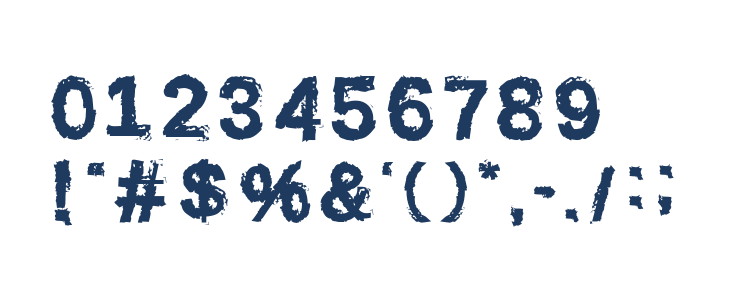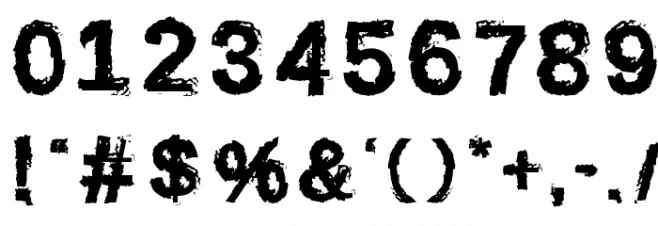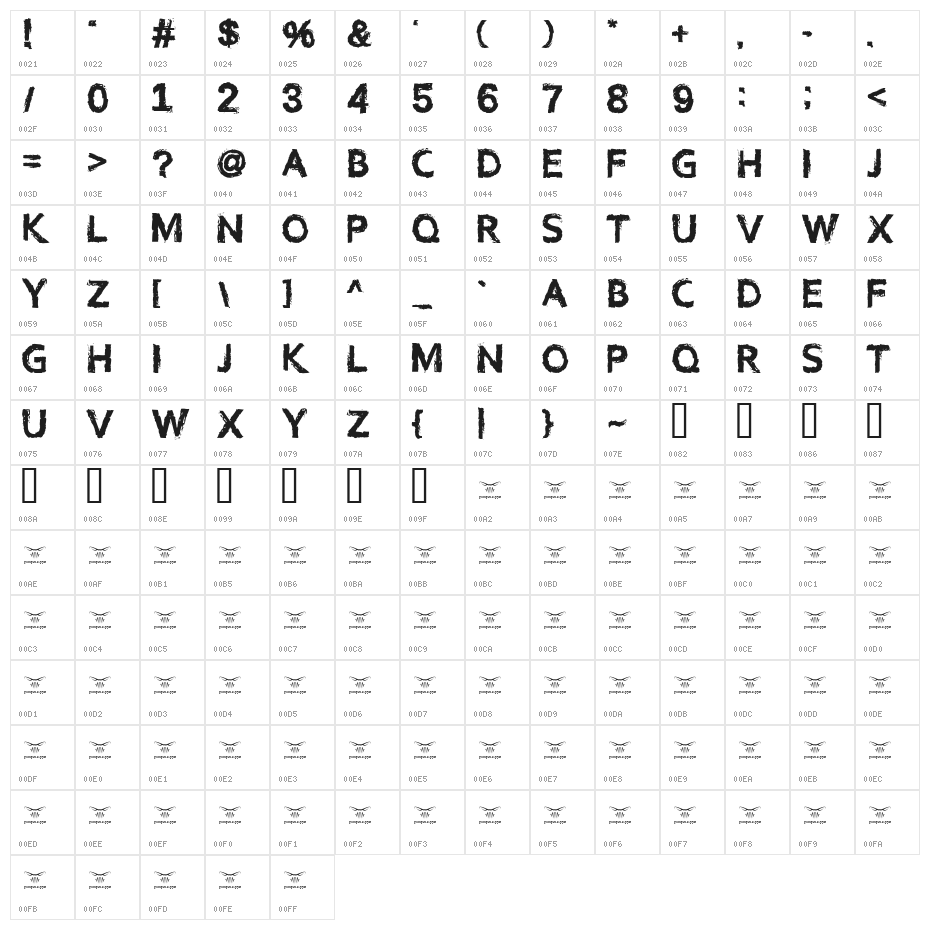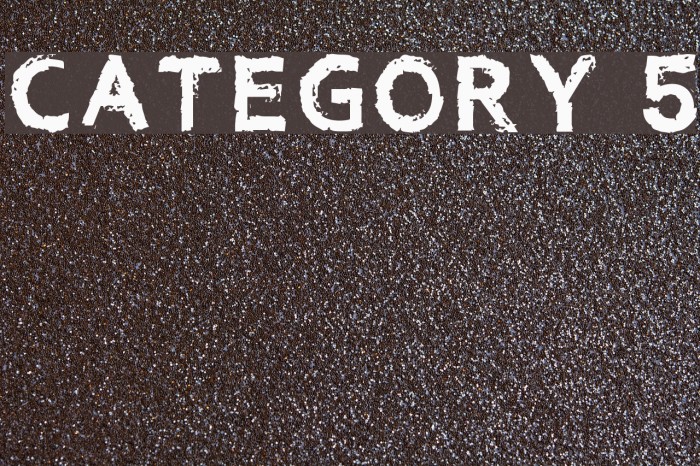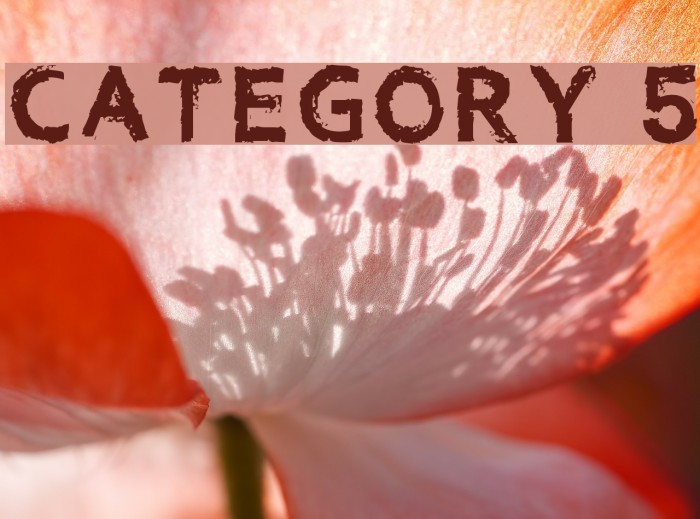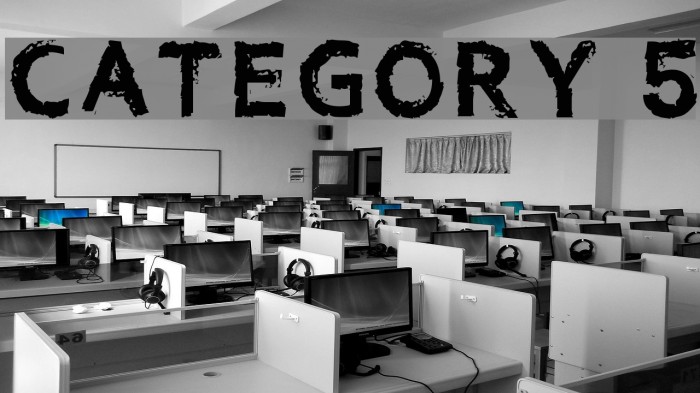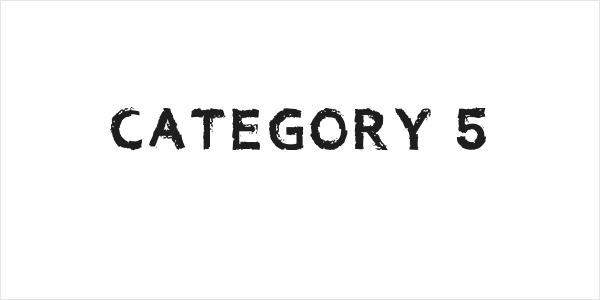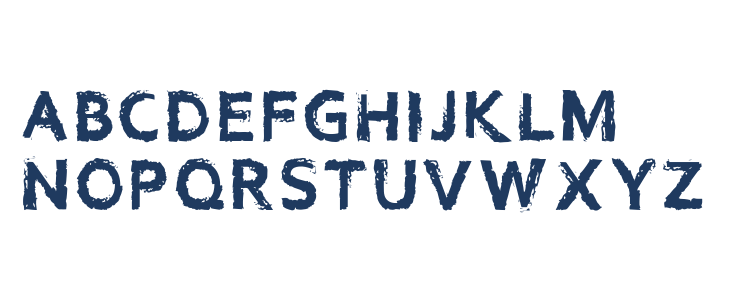
Category 5 Font
Category 5 Description
This font features a bold, distressed style with a rough, textured appearance that gives it a grunge or urban feel. The characters are uppercase and numerals, with a consistent weight throughout. The edges are uneven, creating a hand-painted effect that adds a dynamic and energetic vibe. This font is ideal for projects that require a bold statement, such as posters, album covers, or any design that aims to capture attention with a raw and edgy aesthetic. The spacing between characters is relatively tight, enhancing the compact and impactful look. The overall style is distinctly decorative, making it suitable for headlines or titles rather than body text.
A bold, distressed font with a rough, textured appearance ideal for edgy designs from Uncategorized fonts.
- Proposed Projects: Posters, album covers, urban-themed designs, attention-grabbing headlines.
- Character Spacing: Tight